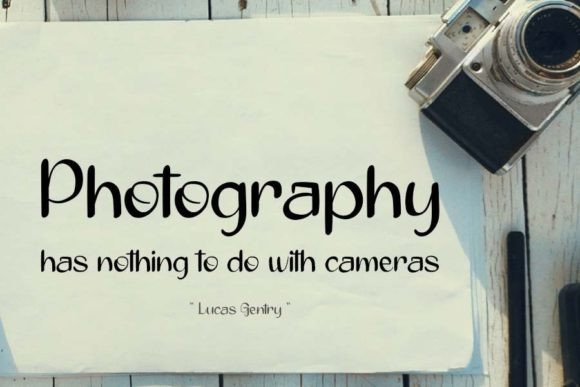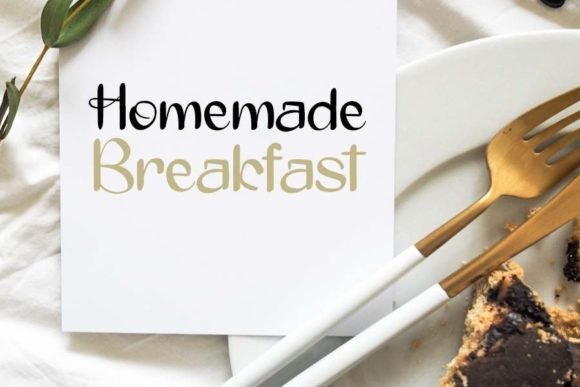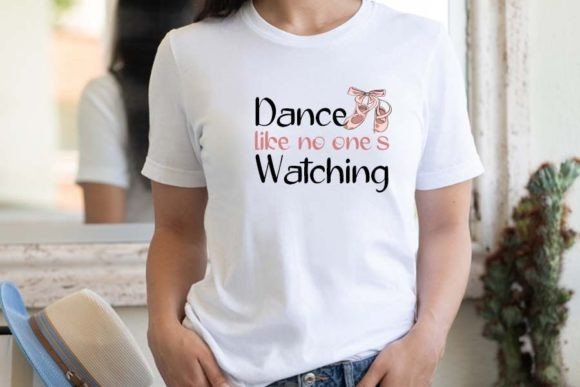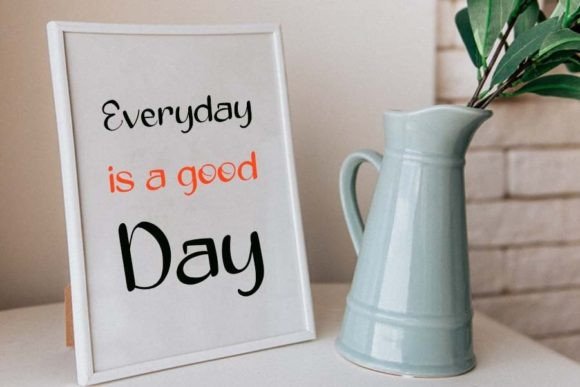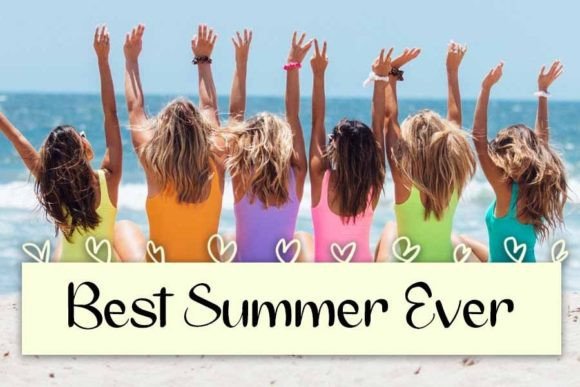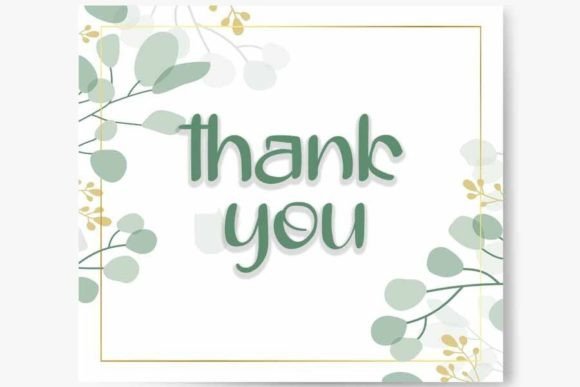
Bringing Handwritten Charm to Your Designs
Have you ever sat down to create a chalkboard quote or a set of teaching materials, only to feel like something’s missing? The generic font just doesn’t cut it, does it? You want your designs to feel personal, to have a touch of authenticity that makes them truly special.
That’s where the Chicken Font comes in – a beautifully crafted handwritten font that’s perfect for adding a realistic, handwritten feel to your designs. Whether you’re creating educational materials or just want to add a touch of whimsy to your next project, Chicken Font is the perfect choice.
As a designer, you know how much a great font can elevate a design. And with Chicken Font, you’ll be able to create designs that truly stand out from the crowd. Its unique, handwritten style is sure to capture attention and leave a lasting impression.
Chicken Font Key Features
- Character Set: The font includes a wide range of characters, including Latin, Cyrillic, and Greek alphabets, as well as punctuation and symbols.
- Unique Characteristics: The font features a unique, hand-drawn design with a mix of bold and delicate lines, giving it a playful yet sophisticated feel.
Chicken Font Review
First impressions count, and the Chicken Font certainly made a loud cluck with its quirky and playful design. ✨ The font’s uneven, handwritten feel adds a touch of whimsy that can work well in casual contexts, such as social media, menus, or children’s products.
- ✨ Unique, recognizable style that stands out from more traditional fonts
- ✨ Effective for conveying a lighthearted, humorous tone
- ✨ Good for use in text-based graphics, logos, or illustrations
- ⚠️ May not be suitable for formal or professional applications, where a more polished look is desired
- ⚠️ Can be difficult to read in certain contexts, such as at small sizes or in dense blocks of text
- ⚠️ Limited to uppercase and lowercase letters, with no italics or other special characters
Overall, I’d say the Chicken Font is a fun, attention-grabbing choice for certain projects. While it may not be suitable for every application, it can add a playful touch to the right design.
Getting the Most Out of the “Chicken Font”
To get the most out of the “Chicken Font”, try using it in creative ways such as:
- Creating playful and whimsical designs.
- Adding a touch of humor to your designs.
- Using it to create a unique and eye-catching visual identity.
The “Chicken Font” is commonly used in:
- Food and drink branding.
- Children’s entertainment and education.
- Humorous and playful marketing campaigns.
Alternatives to “Chicken Font” for Designers
Ostrich Sans is a clean and modern sans-serif font that is perfect for digital design projects. It is highly legible and works well in a variety of contexts, from headlines to body text. Compared to Chicken Font, Ostrich Sans is more minimalist and has a more neutral tone, making it a great choice for projects where you want to avoid distractions.
Great Vibes is a beautiful, elegant script font that is ideal for projects that require a touch of sophistication. It is highly customizable and works well in a variety of contexts, from branding to advertising. Compared to Chicken Font, Great Vibes is more refined and has a more luxurious feel, making it a great choice for high-end projects.